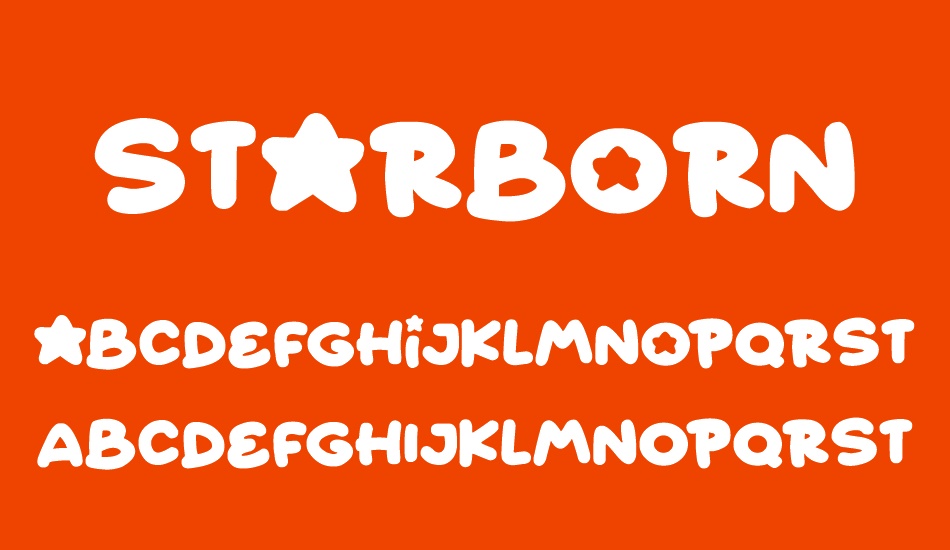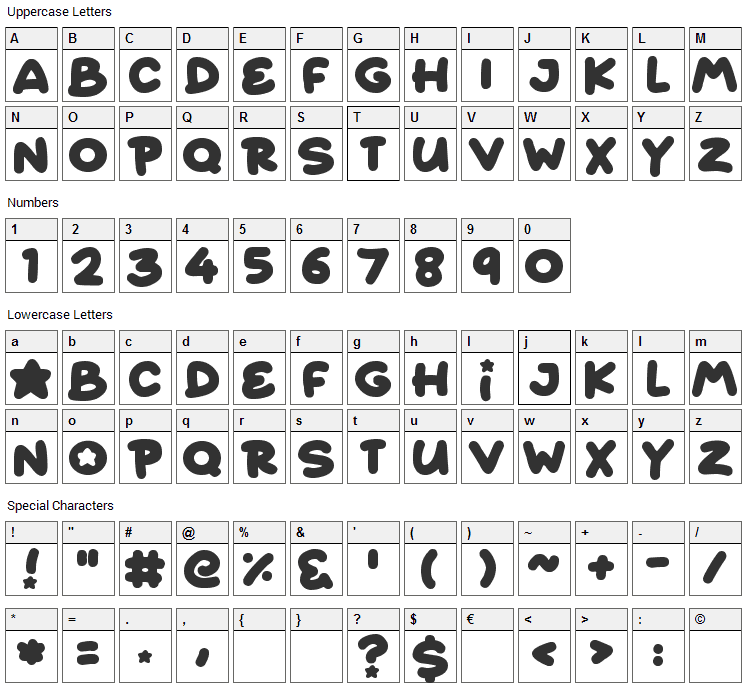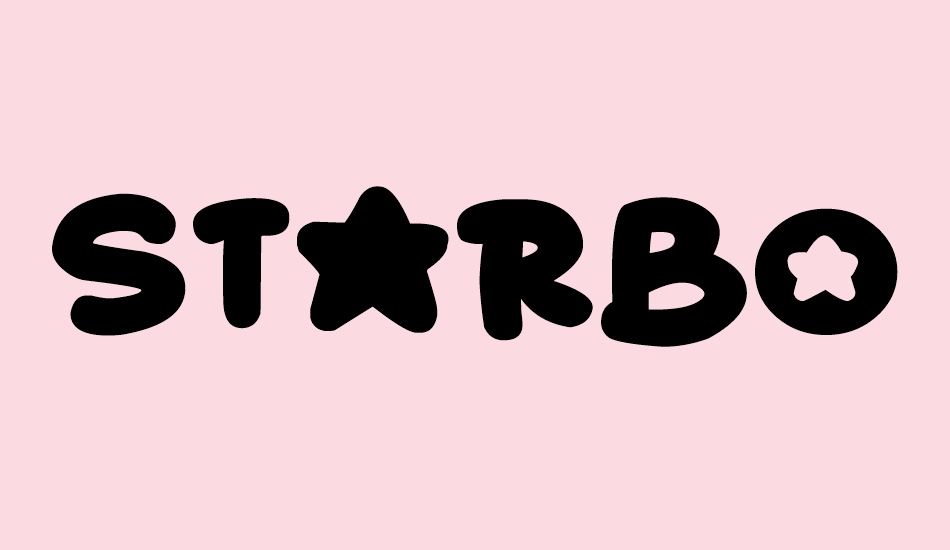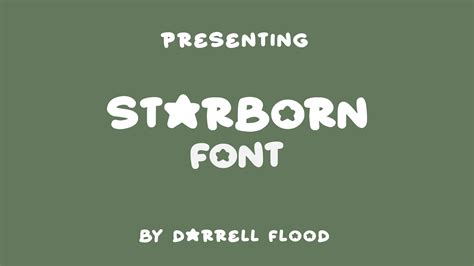
Starborn Font Copy And Paste - Web using this font. This font is free for personal use only. Free download of starborn font. Type some normal text in the box and it'll be 𝖈𝖍𝖆𝖓𝖌𝖊𝖉 into a 𝗵𝘂𝗴𝗲 number of different 𝓼𝓹𝓮𝓬𝓲𝓪𝓵 𝚏𝚘𝚗𝚝𝚜 that you can use on instagram, twitter, facebook, tiktok, and. The demo of this typeface provides you with basic useful features completely for free. Web starborn is a bold decorative display font that was created and released by dadiomouse.
This font is free for personal use only. Web using this font. Free download of starborn font. Type some normal text in the box and it'll be 𝖈𝖍𝖆𝖓𝖌𝖊𝖉 into a 𝗵𝘂𝗴𝗲 number of different 𝓼𝓹𝓮𝓬𝓲𝓪𝓵 𝚏𝚘𝚗𝚝𝚜 that you can use on instagram, twitter, facebook, tiktok, and. The demo of this typeface provides you with basic useful features completely for free. Web starborn is a bold decorative display font that was created and released by dadiomouse.
Web using this font. This font is free for personal use only. Type some normal text in the box and it'll be 𝖈𝖍𝖆𝖓𝖌𝖊𝖉 into a 𝗵𝘂𝗴𝗲 number of different 𝓼𝓹𝓮𝓬𝓲𝓪𝓵 𝚏𝚘𝚗𝚝𝚜 that you can use on instagram, twitter, facebook, tiktok, and. The demo of this typeface provides you with basic useful features completely for free. Web starborn is a bold decorative display font that was created and released by dadiomouse. Free download of starborn font.
This font is free for personal use only. The demo of this typeface provides you with basic useful features completely for free. Web using this font. Type some normal text in the box and it'll be 𝖈𝖍𝖆𝖓𝖌𝖊𝖉 into a 𝗵𝘂𝗴𝗲 number of different 𝓼𝓹𝓮𝓬𝓲𝓪𝓵 𝚏𝚘𝚗𝚝𝚜 that you can use on instagram, twitter, facebook, tiktok, and. Web starborn is a bold.
The demo of this typeface provides you with basic useful features completely for free. Web using this font. Type some normal text in the box and it'll be 𝖈𝖍𝖆𝖓𝖌𝖊𝖉 into a 𝗵𝘂𝗴𝗲 number of different 𝓼𝓹𝓮𝓬𝓲𝓪𝓵 𝚏𝚘𝚗𝚝𝚜 that you can use on instagram, twitter, facebook, tiktok, and. Free download of starborn font. This font is free for personal use only.
Free download of starborn font. Type some normal text in the box and it'll be 𝖈𝖍𝖆𝖓𝖌𝖊𝖉 into a 𝗵𝘂𝗴𝗲 number of different 𝓼𝓹𝓮𝓬𝓲𝓪𝓵 𝚏𝚘𝚗𝚝𝚜 that you can use on instagram, twitter, facebook, tiktok, and. The demo of this typeface provides you with basic useful features completely for free. This font is free for personal use only. Web using this font.
This font is free for personal use only. Web using this font. Free download of starborn font. The demo of this typeface provides you with basic useful features completely for free. Web starborn is a bold decorative display font that was created and released by dadiomouse.
Web using this font. This font is free for personal use only. Type some normal text in the box and it'll be 𝖈𝖍𝖆𝖓𝖌𝖊𝖉 into a 𝗵𝘂𝗴𝗲 number of different 𝓼𝓹𝓮𝓬𝓲𝓪𝓵 𝚏𝚘𝚗𝚝𝚜 that you can use on instagram, twitter, facebook, tiktok, and. The demo of this typeface provides you with basic useful features completely for free. Web starborn is a bold.
Web starborn is a bold decorative display font that was created and released by dadiomouse. Free download of starborn font. Type some normal text in the box and it'll be 𝖈𝖍𝖆𝖓𝖌𝖊𝖉 into a 𝗵𝘂𝗴𝗲 number of different 𝓼𝓹𝓮𝓬𝓲𝓪𝓵 𝚏𝚘𝚗𝚝𝚜 that you can use on instagram, twitter, facebook, tiktok, and. The demo of this typeface provides you with basic useful features.
Starborn Font Dafont Free
Web using this font. Web starborn is a bold decorative display font that was created and released by dadiomouse. Free download of starborn font. The demo of this typeface provides you with basic useful features completely for free. Type some normal text in the box and it'll be 𝖈𝖍𝖆𝖓𝖌𝖊𝖉 into a 𝗵𝘂𝗴𝗲 number of different 𝓼𝓹𝓮𝓬𝓲𝓪𝓵 𝚏𝚘𝚗𝚝𝚜 that you can.
Starborn Font free download
Web using this font. This font is free for personal use only. Type some normal text in the box and it'll be 𝖈𝖍𝖆𝖓𝖌𝖊𝖉 into a 𝗵𝘂𝗴𝗲 number of different 𝓼𝓹𝓮𝓬𝓲𝓪𝓵 𝚏𝚘𝚗𝚝𝚜 that you can use on instagram, twitter, facebook, tiktok, and. Web starborn is a bold decorative display font that was created and released by dadiomouse. The demo of this.
Starborn Font Download Free Font Now
Free download of starborn font. The demo of this typeface provides you with basic useful features completely for free. Web using this font. Type some normal text in the box and it'll be 𝖈𝖍𝖆𝖓𝖌𝖊𝖉 into a 𝗵𝘂𝗴𝗲 number of different 𝓼𝓹𝓮𝓬𝓲𝓪𝓵 𝚏𝚘𝚗𝚝𝚜 that you can use on instagram, twitter, facebook, tiktok, and. Web starborn is a bold decorative display font.
Starborn free font
Free download of starborn font. This font is free for personal use only. Type some normal text in the box and it'll be 𝖈𝖍𝖆𝖓𝖌𝖊𝖉 into a 𝗵𝘂𝗴𝗲 number of different 𝓼𝓹𝓮𝓬𝓲𝓪𝓵 𝚏𝚘𝚗𝚝𝚜 that you can use on instagram, twitter, facebook, tiktok, and. Web starborn is a bold decorative display font that was created and released by dadiomouse. The demo of.
Web starborn is a bold decorative display font that was created and released by dadiomouse. Free download of starborn font. This font is free for personal use only. Type some normal text in the box and it'll be 𝖈𝖍𝖆𝖓𝖌𝖊𝖉 into a 𝗵𝘂𝗴𝗲 number of different 𝓼𝓹𝓮𝓬𝓲𝓪𝓵 𝚏𝚘𝚗𝚝𝚜 that you can use on instagram, twitter, facebook, tiktok, and.